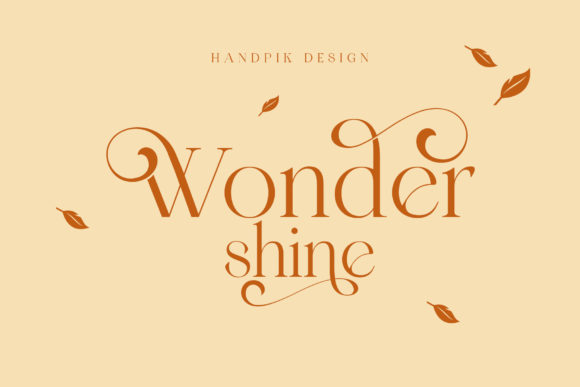
Introducing Wonder Shine Font, the epitome of elegance and beauty! This handpicked serif font is a must-have for anyone seeking the perfect font for their beauty products. With its captivating allure and smooth curves, Wonder Shine is guaranteed to elevate your designs to new heights.
Designed with meticulous care, this font exudes sophistication and charm. Its timeless appeal makes it ideal for a wide range of applications. From enchanting invitation cards to stunning decorations, Wonder Shine adds a touch of class to any project. Let your creativity shine through as you adorn clothing products, greeting cards, and more with this exquisite font.
What sets Wonder Shine apart is its PUA encoding. This remarkable feature allows you to effortlessly access an array of delicate glyphs and swashes. Unleash your artistic flair and enhance your designs with these intricate details. Each character is crafted with utmost precision, ensuring a seamless and visually pleasing outcome.
Indulge your senses with Wonder Shine Font's captivating beauty. Its graceful curves and refined strokes evoke a sense of sophistication that will leave a lasting impression on your audience. Whether you're designing for a high-end cosmetics brand or a luxurious wedding invitation, this font will make your creations truly extraordinary.
Unlock a world of endless possibilities with Wonder Shine Font. Its versatility knows no bounds, allowing you to bring your vision to life in the most enchanting way. Embrace the power of this font and watch as it transforms your designs into works of art that command attention.